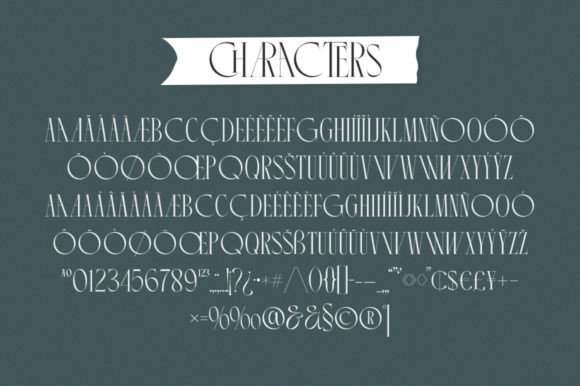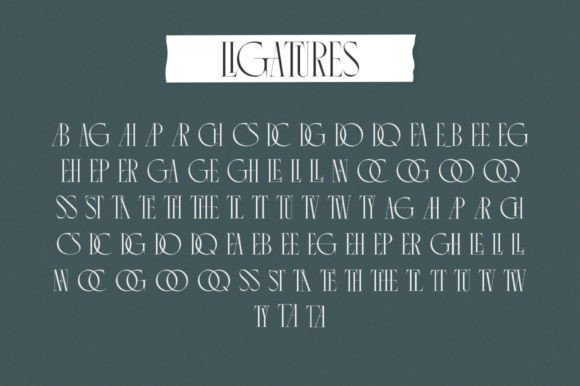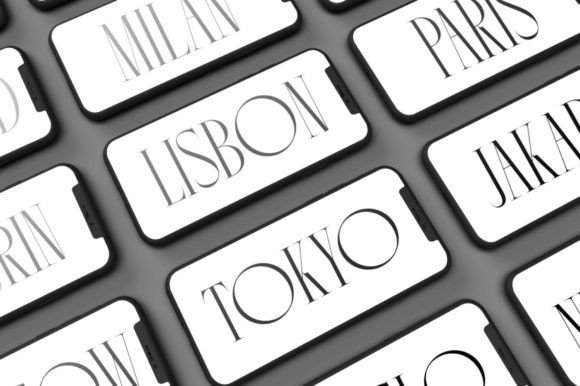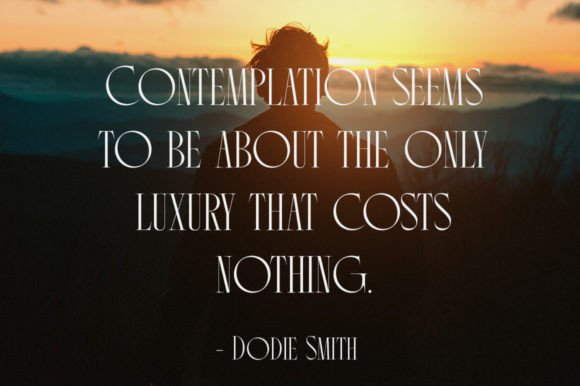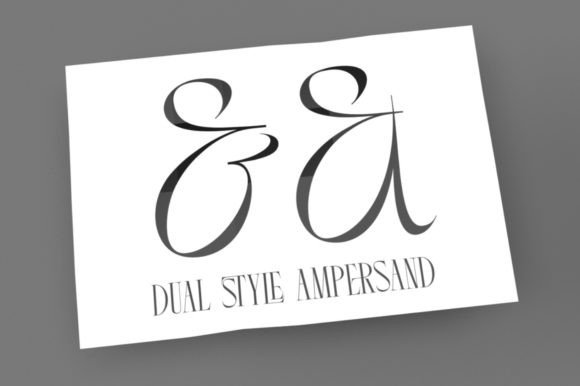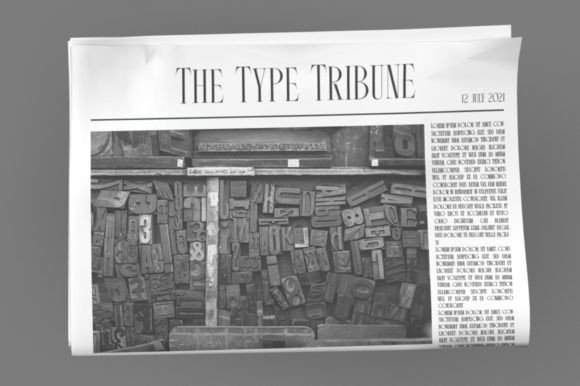
The Chevani Font: A Unique All-Caps Condensed Serif for Dramatic Headlines
What Makes Chevani Special?
Chevani is a unique all-caps condensed serif font that offers a range of exciting features. Here are some of the things that make it stand out:
- ✨ Alternate characters: Chevani includes a variety of alternate characters that are significantly wider than standard characters, allowing you to create dramatic headlines and titles.
- ✅ Custom ligatures: The font also features a nice selection of custom ligatures, making it even more versatile and perfect for creative projects.
- ✨ The condensed design makes it perfect for headlines and titles, where space is limited.
- ✅ The alternate characters and ligatures offer endless possibilities for creative expression.
- ✅ The font is easy to read, even in smaller sizes.
- ⚠️ Some of the alternate characters can be a bit tricky to find, but once you get the hang of it, it’s easy to use them effectively.
- 🤔 The font is all-caps, which may not be suitable for body text or longer paragraphs.
The Story Behind Chevani
Chevani was designed by a team of typographers who wanted to create a unique and versatile font that would meet the needs of modern designers. Inspired by classic serif fonts, they experimented with bold and condensed designs, adding a range of alternate characters and ligatures to make it more interesting. The result is a font that’s both elegant and attention-grabbing.
| Author | Surplus Type Co. |
A: While Chevani is a beautiful font, it’s primarily designed for headlines and titles. Its condensed design and all-caps style may not be suitable for longer paragraphs or body text.